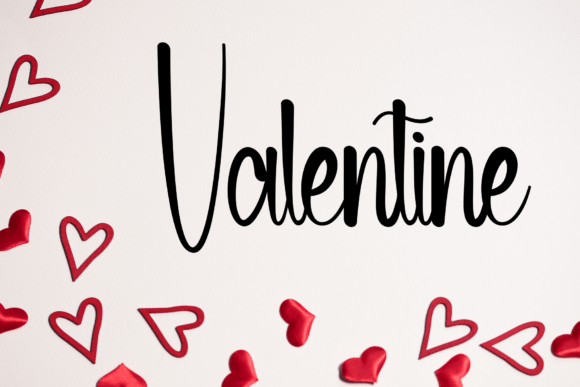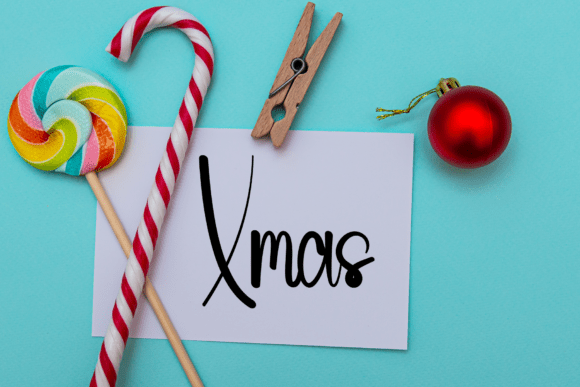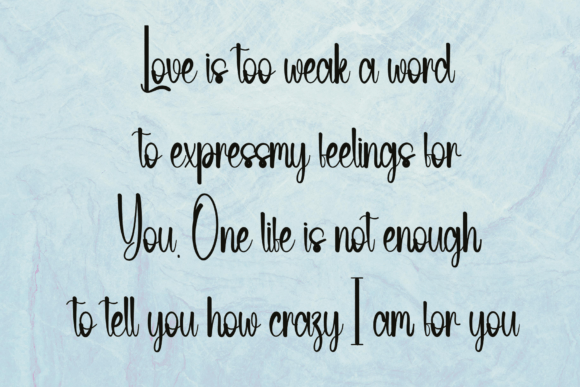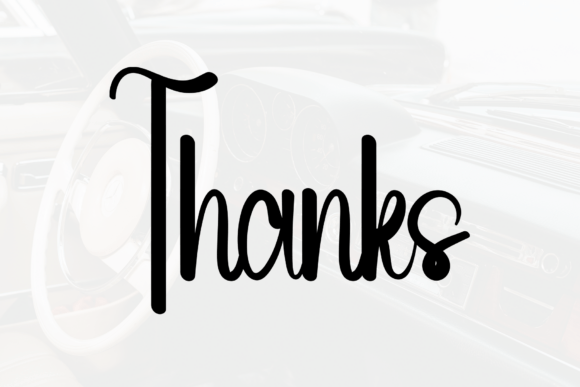
Celebration Font: Elevate Your Designs with a Touch of Elegance and Casual Charm
In the world of design, fonts play a crucial role in conveying the tone and personality of a brand or project. If you’re on the hunt for a typeface that exudes luxury, elegance, and a dash of casual flair, look no further than the Celebration Font. This handwritten font, crafted to mimic the look of marker-drawn letters, is perfect for designers and crafters seeking to add a unique touch to their creations.
The Essence of Celebration Font
Celebration Font is characterized by its relaxed and sporty feel, making it an excellent choice for a wide range of applications. From branding and logos to wedding supplies, greeting cards, fashion lookbooks, and marketing promotions, this versatile font can elevate your designs to new heights. Its distinctive marker-drawn aesthetic lends a personal and approachable vibe, ideal for projects that require a blend of sophistication and laid-back charm.
Key Features of Celebration Font
- Handwritten with a marker feel: The font’s organic, hand-drawn look gives it a unique and personalized feel, setting it apart from more traditional typefaces.
- Relaxed and sporty: The Celebration Font strikes the perfect balance between elegance and casualness, making it suitable for a variety of design projects.
- Versatile: Whether you’re working on branding, wedding stationery, fashion designs, or marketing materials, this font can adapt to your creative needs.
- Luxurious and elegant: Despite its casual undertones, the Celebration Font boasts a level of sophistication that’s perfect for high-end designs and luxury brands.
Applications of Celebration Font
The versatility of Celebration Font makes it an excellent addition to any designer’s toolkit. Here are some of the many ways you can use this exceptional font:
- Branding and Logos: Create a memorable brand identity with a logo that stands out, thanks to the font’s distinctive and stylish appearance.
- Wedding Supplies: Add a touch of romance and whimsy to wedding stationery, invitations, and decorations with this beautiful font.
- Greeting Cards: Whether it’s a birthday, anniversary, or holiday card, the Celebration Font can help you create heartfelt and visually appealing greetings.
- Fashion and Lookbooks: Elevate your fashion designs and lookbooks with a font that exudes style and sophistication.
- Marketing Promotions: Use the Celebration Font to create eye-catching promotional materials that capture the essence of your brand and message.
Tips for Using Celebration Font Effectively
To make the most of Celebration Font, consider the following tips:
- Pair it with complementary fonts: Combine the Celebration Font with other typefaces to create visual interest and hierarchy in your designs.
- Experiment with colors and textures: Don’t be afraid to play around with different colors and textures to enhance the font’s marker-drawn feel.
- Use it consistently: For branding and marketing materials, ensure consistent use of the Celebration Font to establish a strong visual identity.
Celebration Font is a remarkable addition to any designer’s arsenal, offering a perfect blend of elegance, luxury, and casual charm. Its versatility and distinctive marker-drawn aesthetic make it suitable for a wide range of projects, from branding and logos to wedding supplies and marketing promotions. By incorporating Celebration Font into your designs, you’ll be able to create visually stunning and memorable pieces that capture the essence of your brand or project.
Whether you’re a seasoned designer or a crafty DIY enthusiast, the Celebration Font is sure to inspire your creativity and help you produce designs that stand out from the crowd. So why wait? Explore the possibilities of Celebration Font today and elevate your designs to new heights of elegance and sophistication.